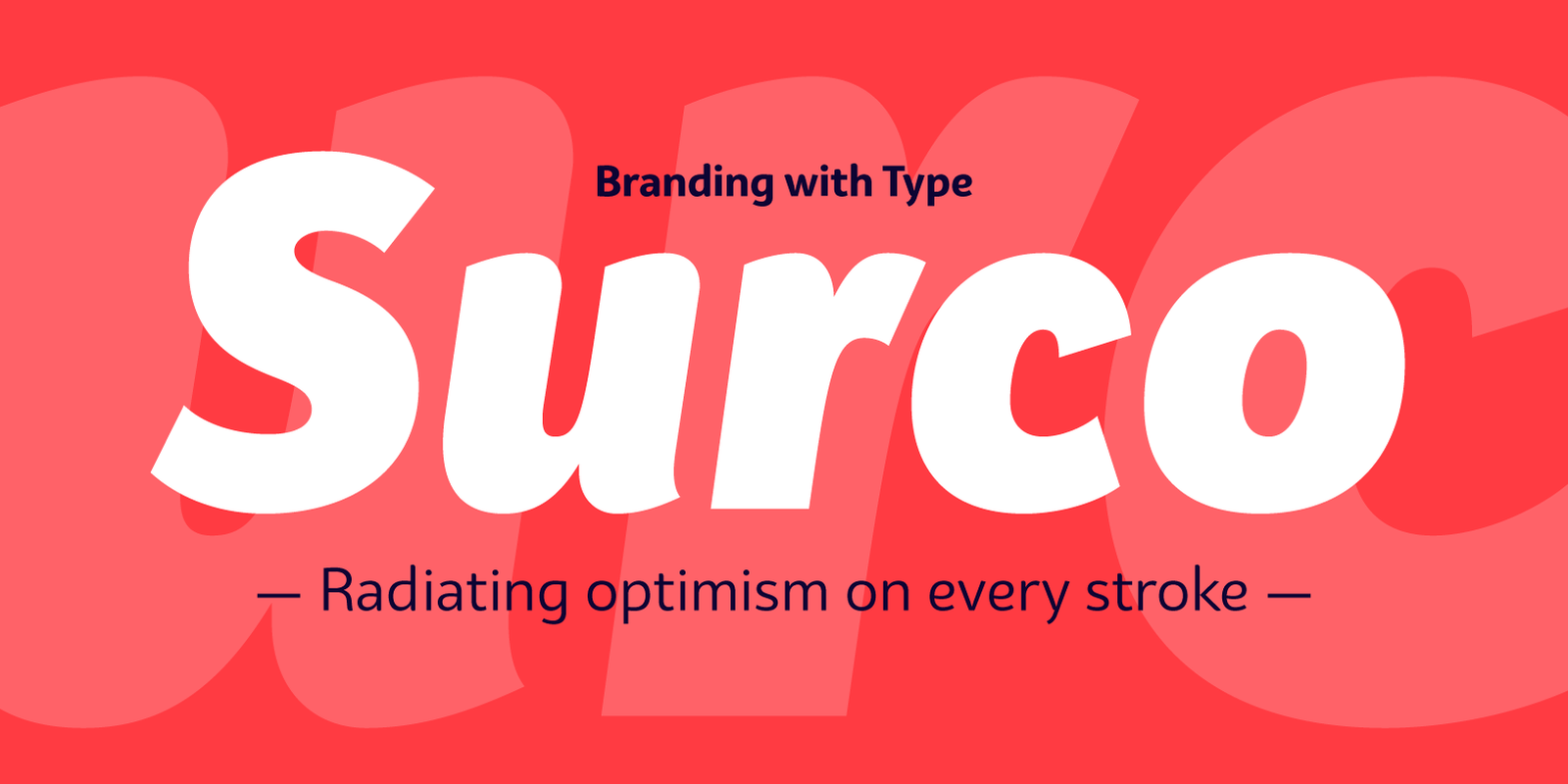
Bw Surco Font is a fresh and optimistic humanist sans serif with hand-stroke cues. Its soft, rounded shapes, balanced x-height, and the contrast between the Romans and the true italics, all build towards a very practical font family with a friendly and spontaneous personality.
Humanist san serifs are typefaces that are calligraphic in nature. Unlike other sans serifs, they are with higher stroke contrast, and generally the best choice for long reading and small texts.
Bw Surco is a soft, optimistic, and fresh humanist sans serif. The rounded shapes, balanced x-height, and the contrast between the true italics and Romans all gear towards a practical type family with a friendly personality. There are 12 styles available and it supports every Cyrillic and European Latin language, with stylistic variations for Serbian, Macedonian and Bulgarian. It features OTFs like lining style, old figures, case-sensitive forms, or fractions.